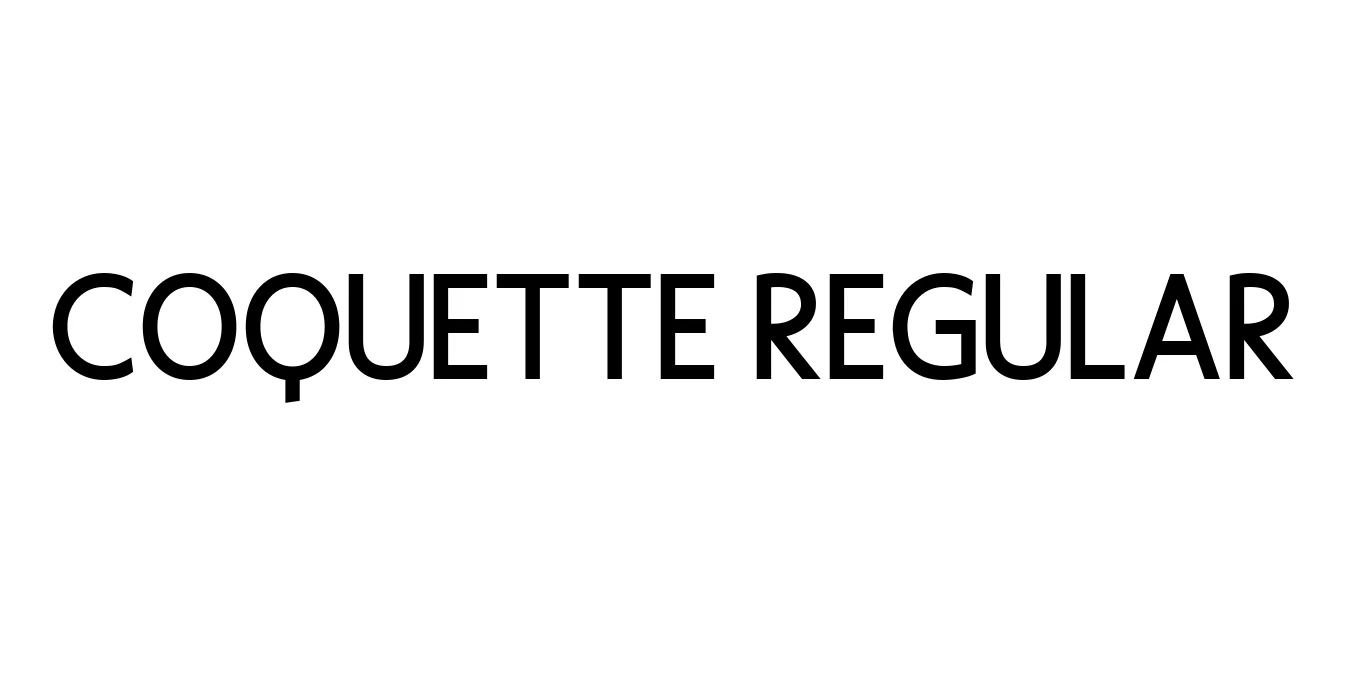
Coquette Regular
Designed by Mark Simonson
Coquette Regular is a sophisticated script typeface designed by Mark Simonson and originally released in 2001. It represents a unique stylistic hybrid, blending the charms of French vernacular scripts with the rigid underlying geometry of 1930s sans-serif fonts. This results in an upright, unconnected script that feels both nostalgic and strikingly contemporary, making it a versatile choice for designers seeking a balance between formal elegance and playful character.
Over the years, Coquette has become a staple for projects requiring a touch of retro-chic aesthetic. Because the letters do not connect, it maintains excellent legibility even at smaller sizes compared to traditional cursive fonts. Its rhythmic quality and distinctive stroke endings make it particularly effective for high-end branding, fashion editorial work, and vintage-inspired packaging design.
Coquette Regular Best Uses
Creating distinctive logos for boutiques, salons, and high-end lifestyle brands.
Adding a sophisticated, vintage touch to cosmetics and gourmet food products.
Eye-catching headlines and subheaders in fashion and lifestyle magazines.